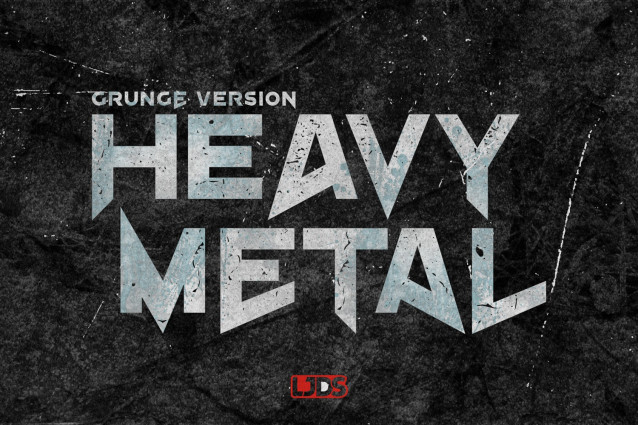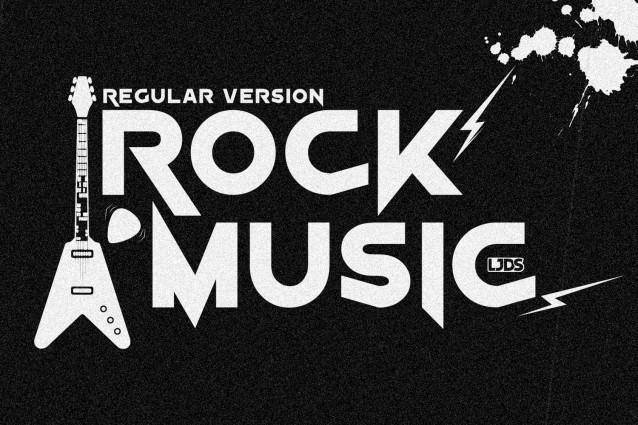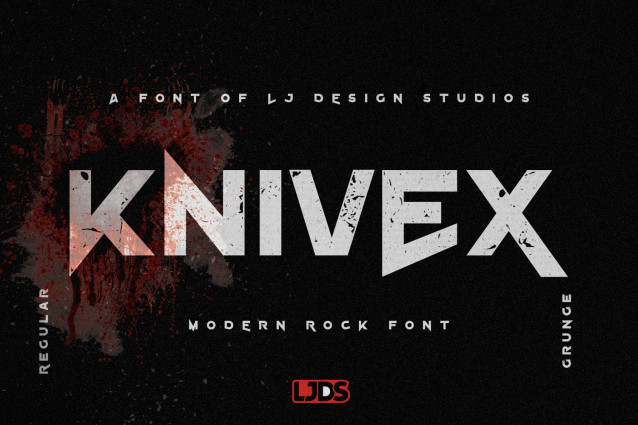
Knivex Font
Knivex Font is a typeface with a simple, geometric style modified to give an aggressive appearance, inspired by modern and industrial rock music. At the same time, it’s a conservative style that seeks to revive the air of a bygone era.
It has two styles: Regular / Grunge in the same family, and its design lends itself to creating logos for Rock, Metal and many other musical genres bands, it is also perfect for creating attractively aggressive titles such as the name of a good rock music festival on a poster.